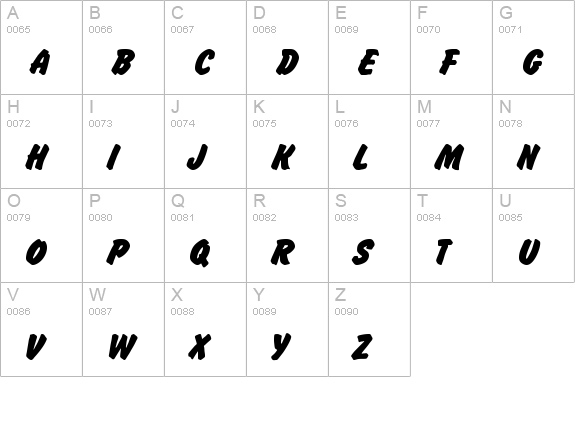
FlashEF-Bold is a strong, high-contrast variant in the FlashEF typeface family \xE2\x80\x94 well suited to headlines, attention-grabbing titles, and strong calls-to-action.
FlashEF-Bold is a modern and stylish typeface that exudes energy and dynamism. Its bold strokes and sharp edges make it perfect for grabbing attention and making a statement. This font is versatile and can be used for a variety of design projects, from posters to logos to headlines. What sets FlashEF-Bold apart is that it is available for free download at FontsMarket.com. This means that you can easily access this striking font without any cost, making it a valuable addition to your font library. Whether you are a designer, a student, or a business owner looking to enhance your branding, FlashEF-Bold is a fantastic choice that combines style and accessibility. Download it today and unleash the power of this bold and captivating typeface in your projects.